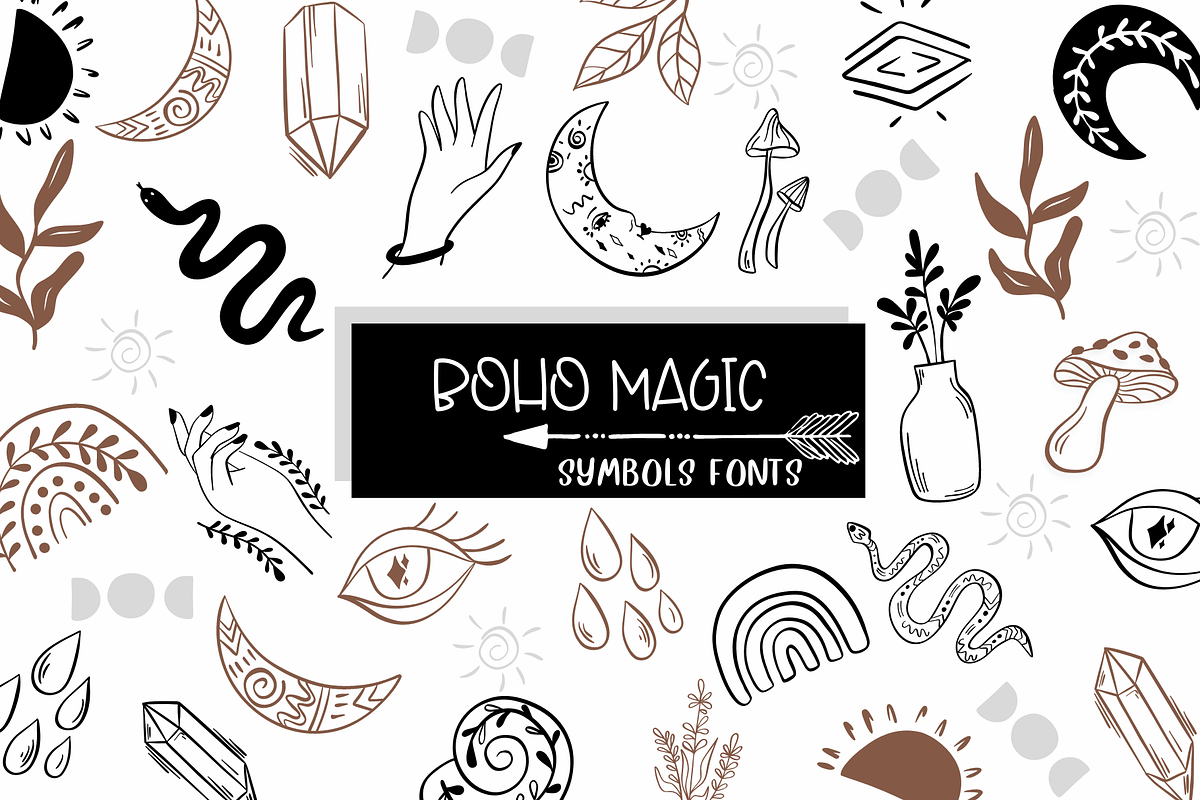
Boho Magic | Symbols Fonts Free Download
Boho Magic | Symbols Fonts Free Download is a mystical and enchanting font set filled with hand-drawn symbols inspired by bohemian, celestial, and spiritual aesthetics. Perfect for creating magical logos, mystical branding, tarot cards, posters, stickers, social media art, and DIY projects, this symbol font brings a whimsical, free-spirited energy to your designs.
From moons and stars to crystals, herbs, and geometric accents, each glyph is designed to add a touch of wonder and creativity. As a symbol font, it's incredibly easy to use—just type to insert beautiful vector-style icons directly into your design.